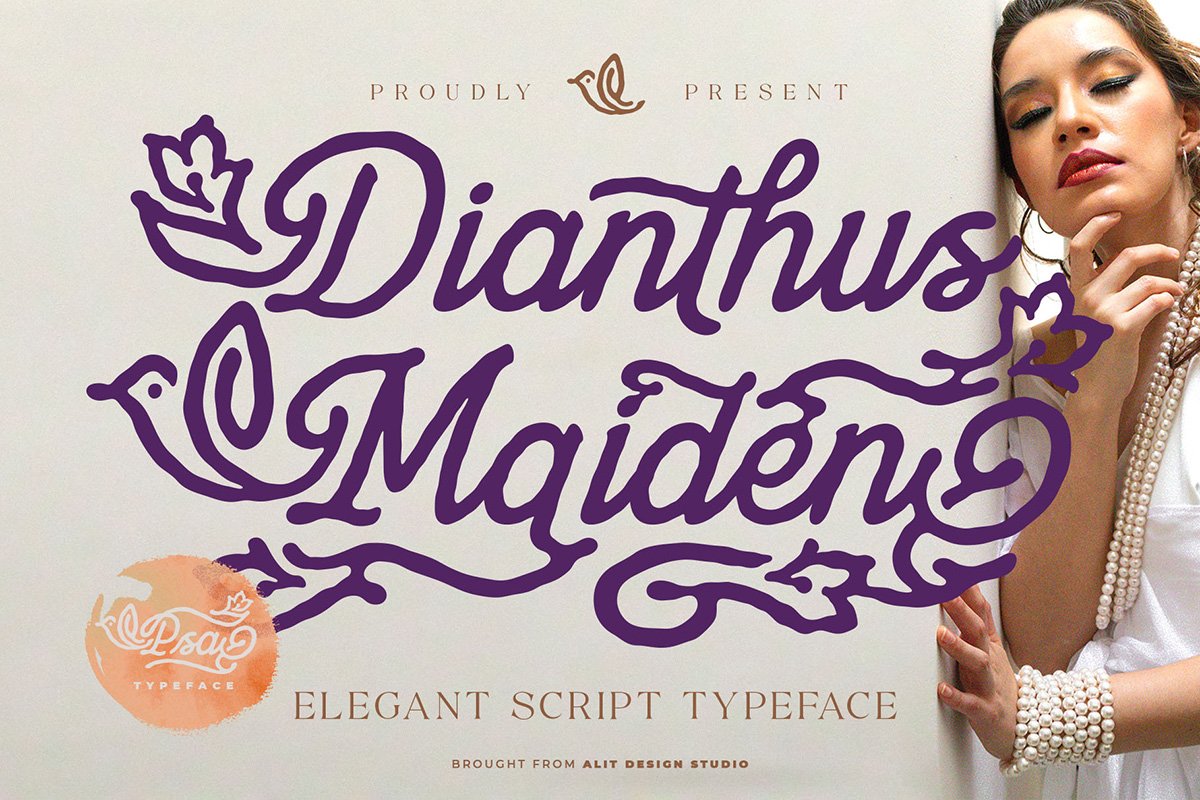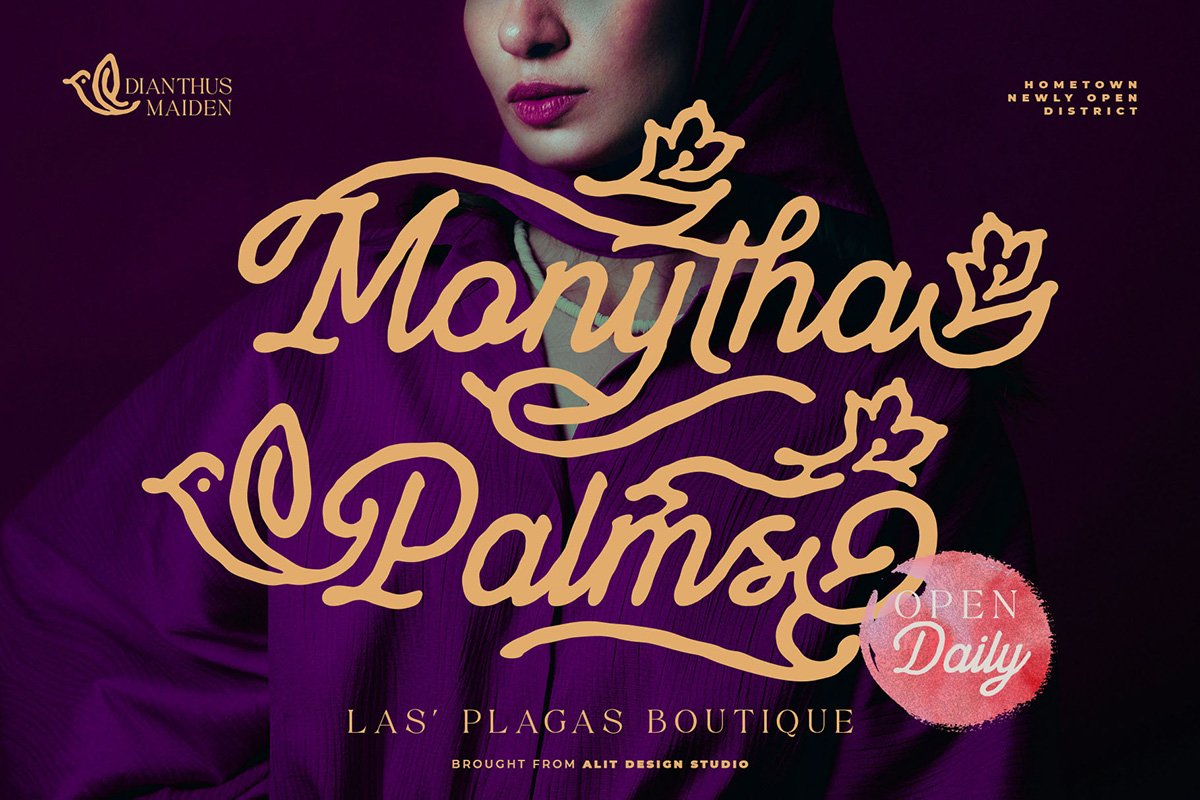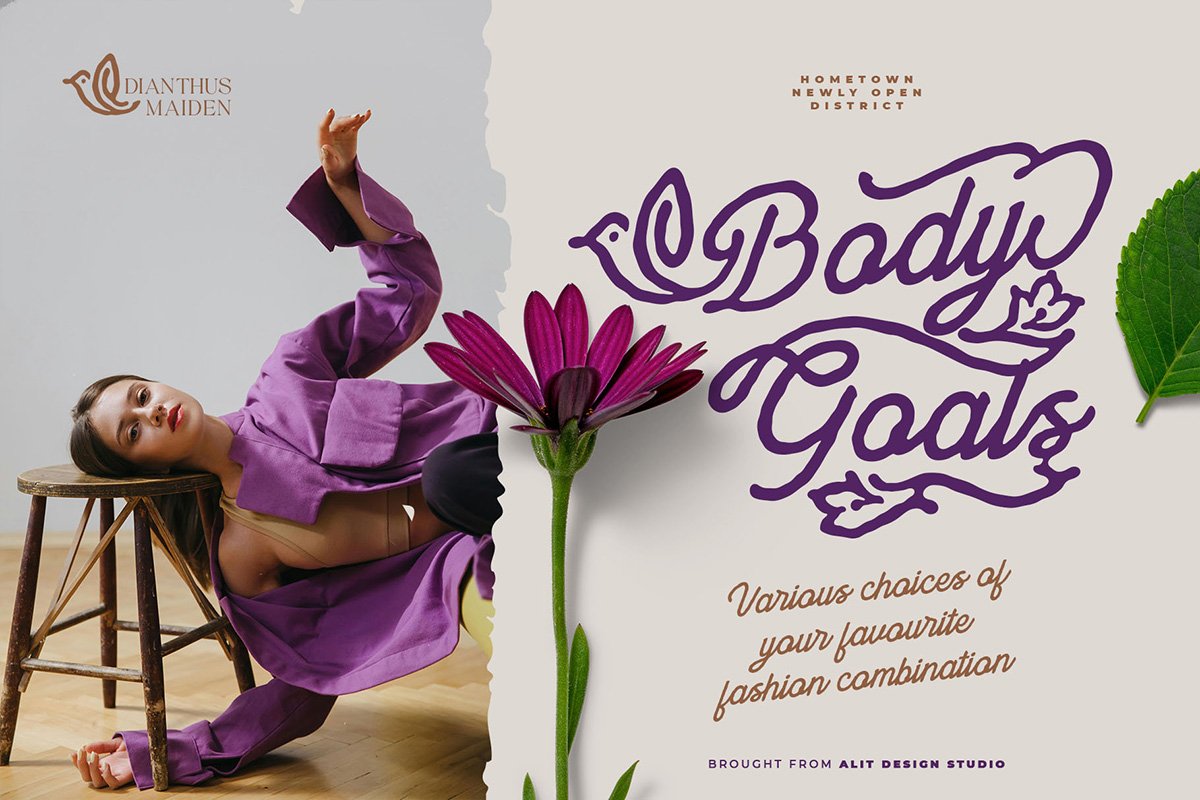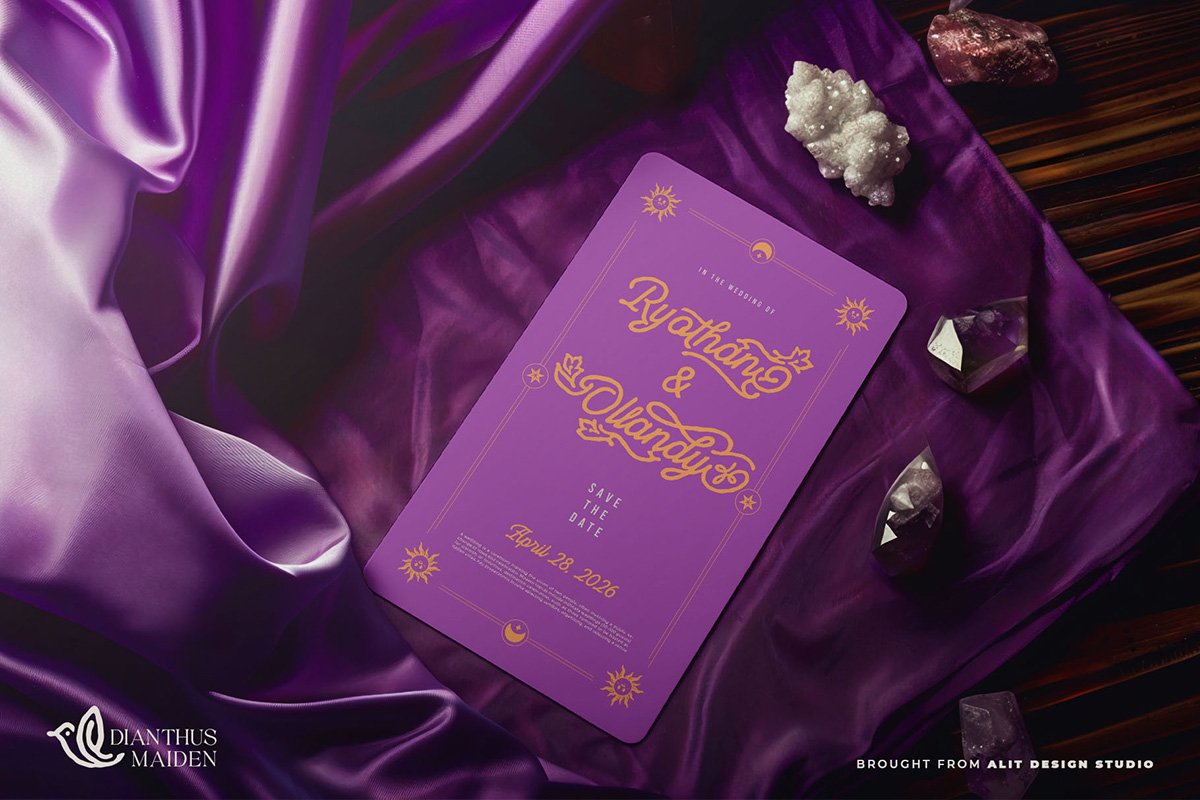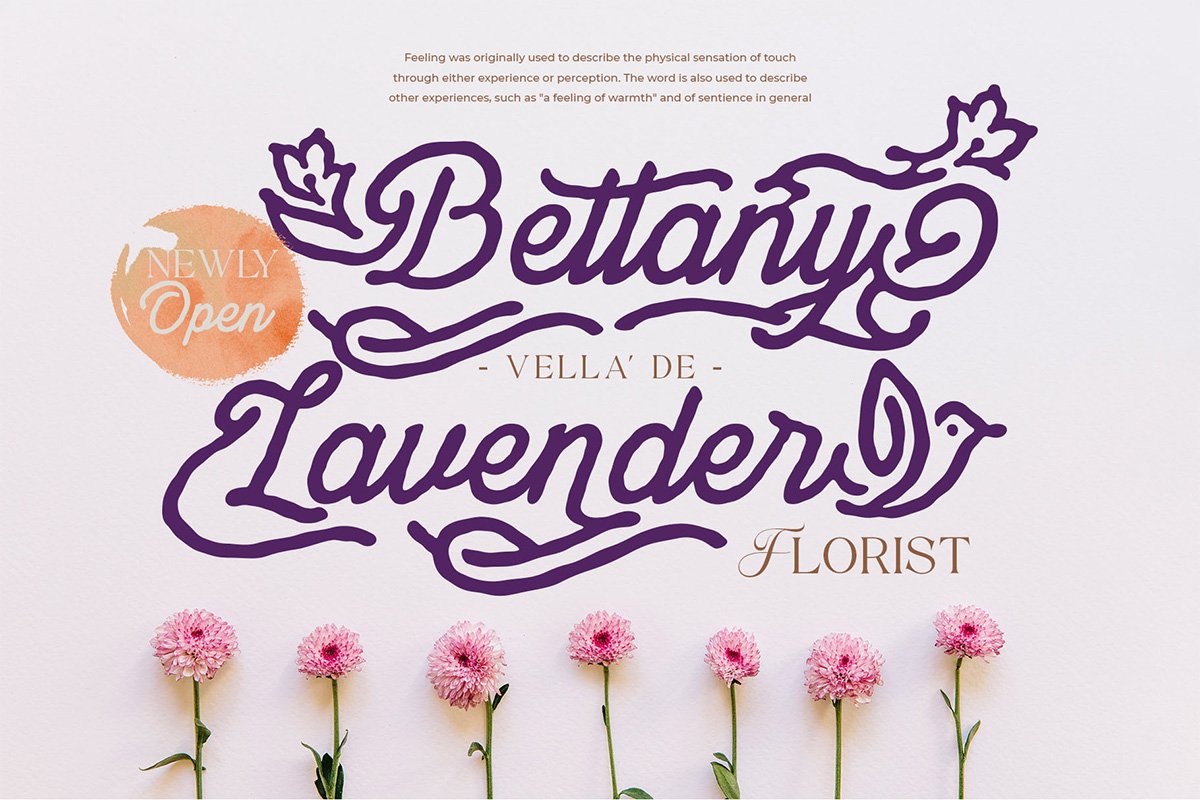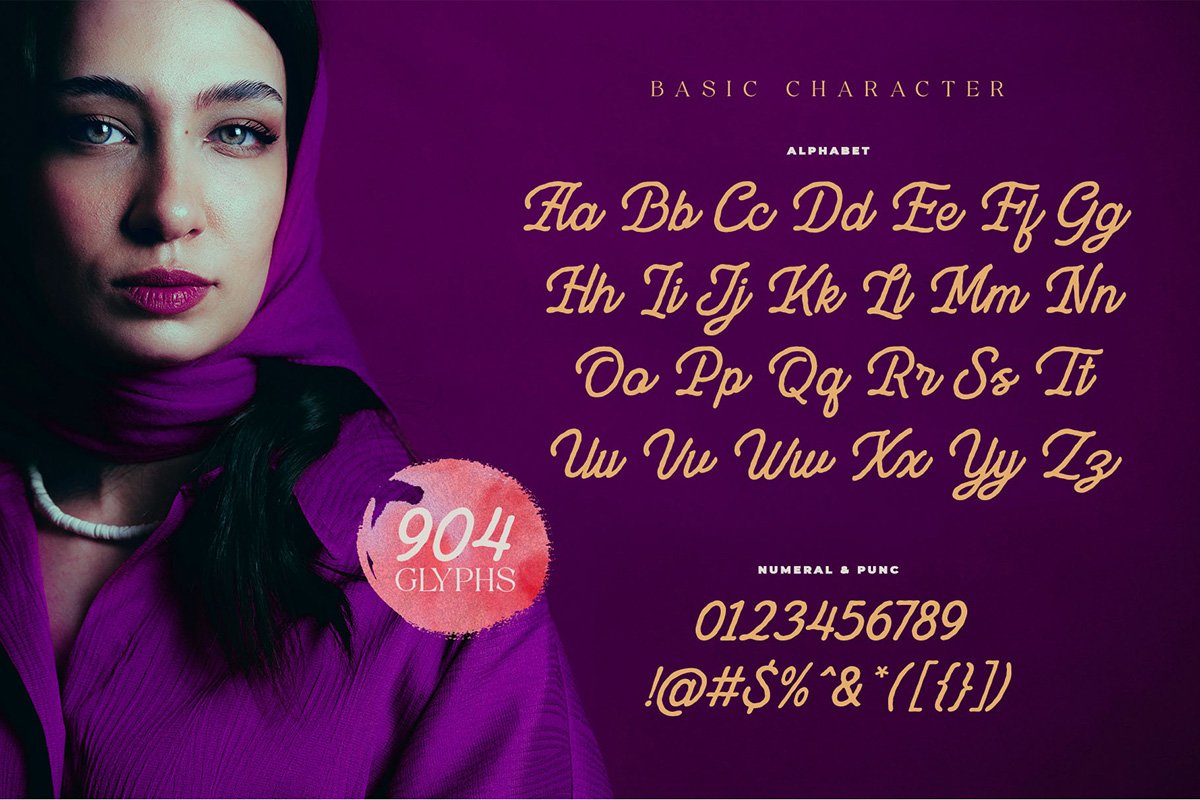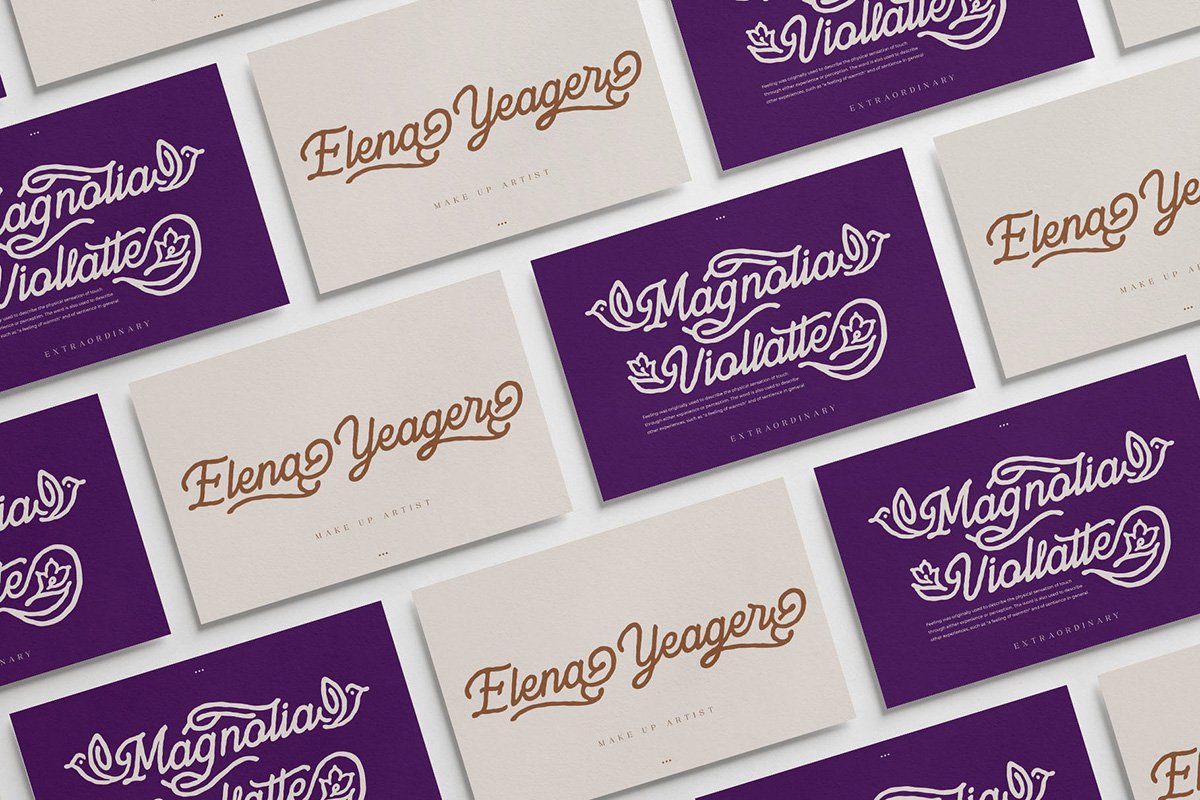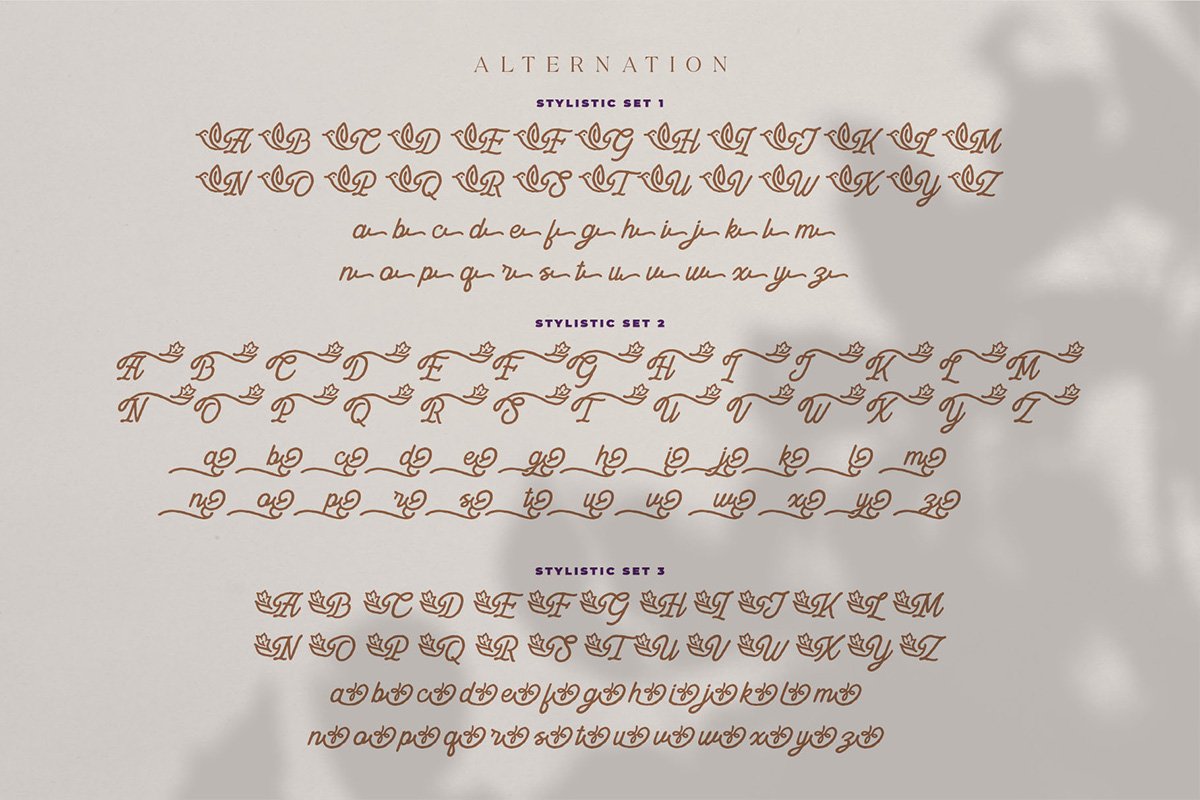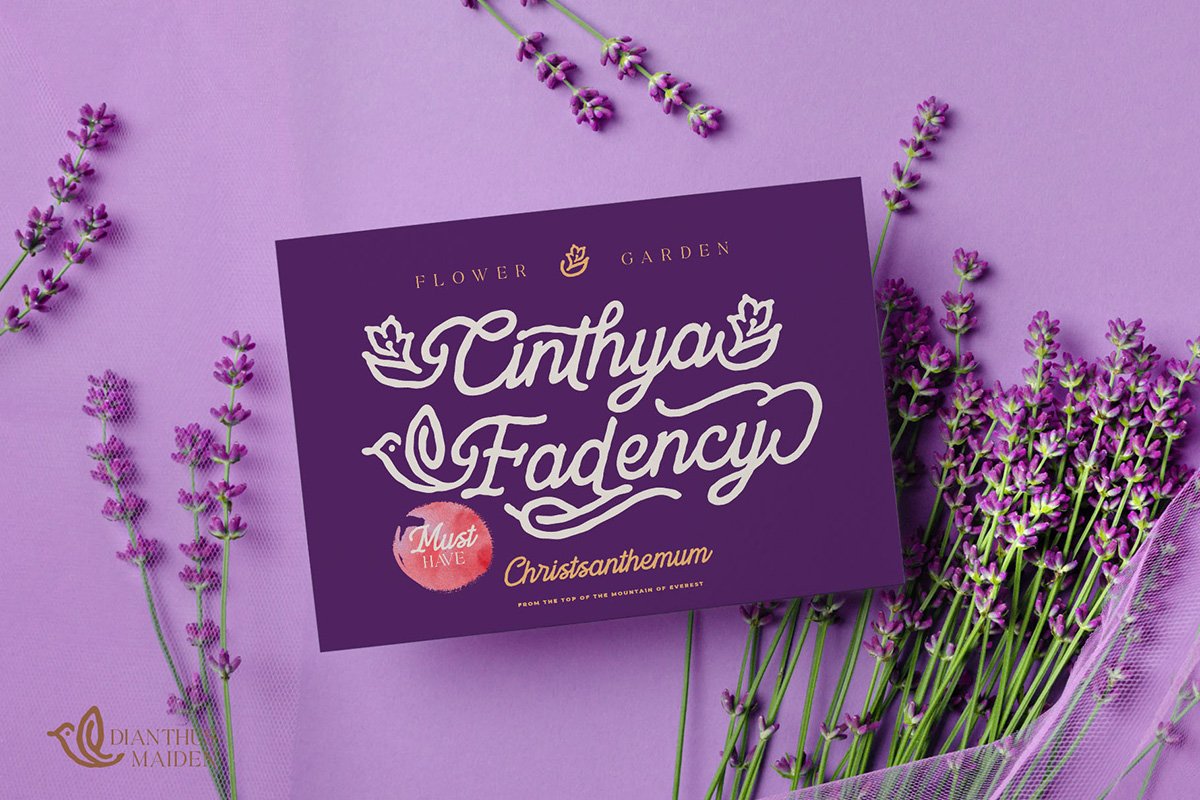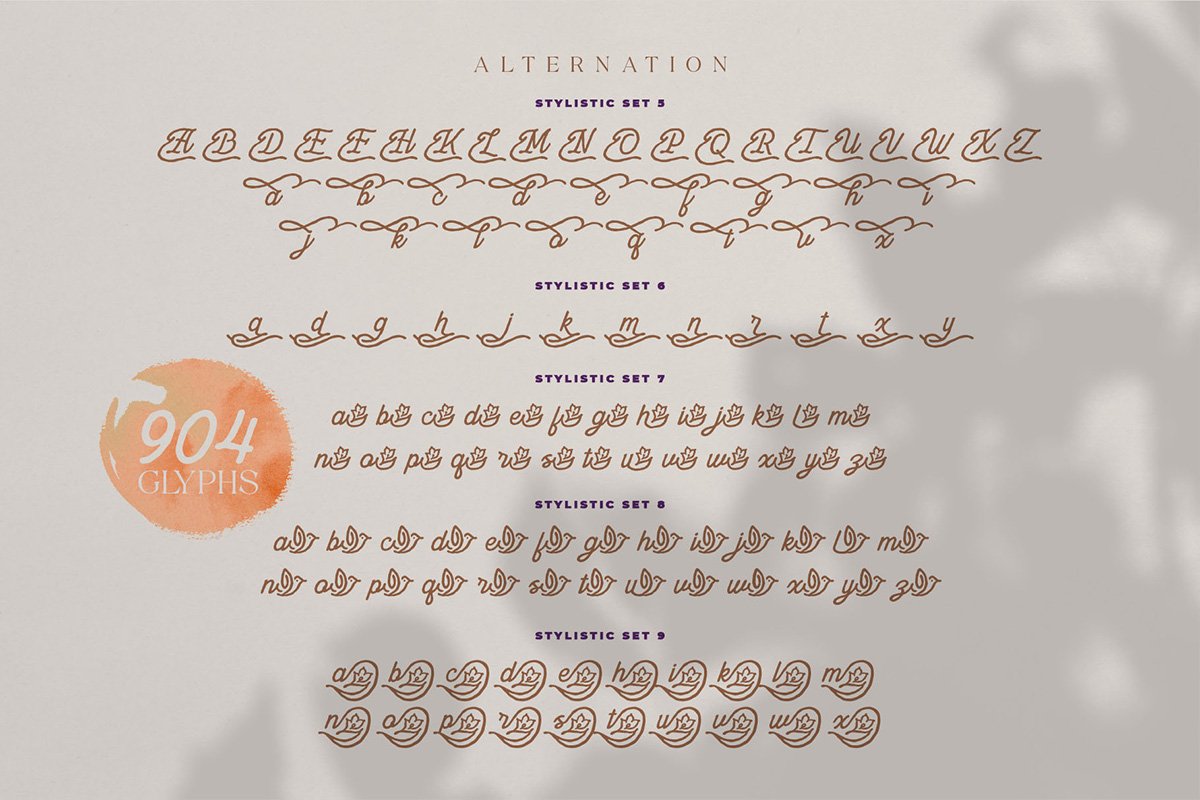
Introducing Dianthus Maiden Font a breathtakingly elegant and luxurious script font designed to bring a touch of graceful romance to your creative projects. Masterfully crafted to capture the essence of fluid, hand-drawn calligraphy, this typeface blends classic sophistication with modern botanical beauty.
What makes Dianthus Maiden truly extraordinary is its massive collection of 904 glyphs, giving you unparalleled creative freedom. It is meticulously packed with 16 Stylistic Sets featuring exquisite, intricate swashes adorned with delicate bird and leaf motifs. Whether you are designing a high-end fashion editorial, a boutique florist logo, luxurious wedding invitations, or striking cosmetic packaging, Dianthus Maiden provides the perfect decorative flair to make your typography feel custom-made and effortlessly beautiful.